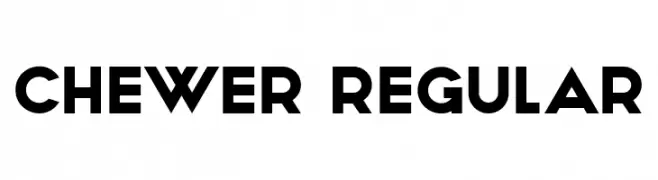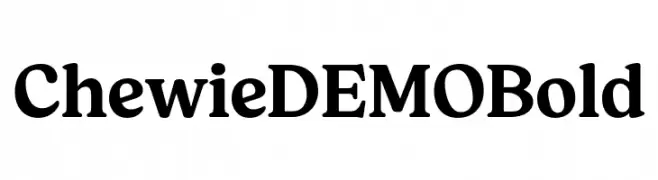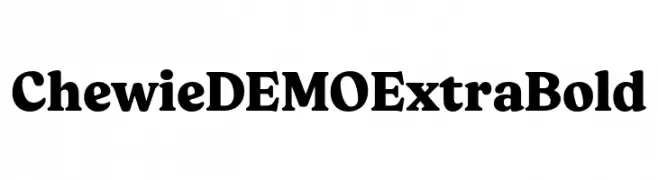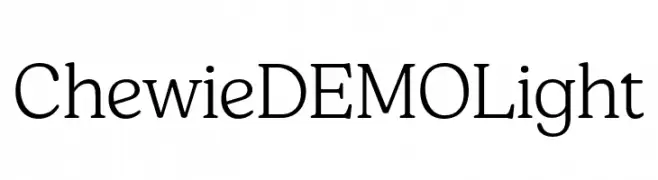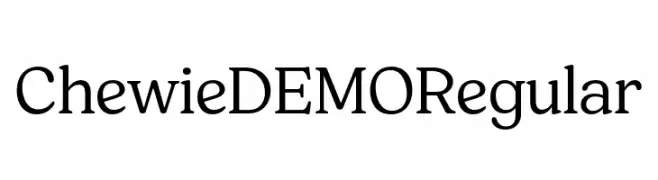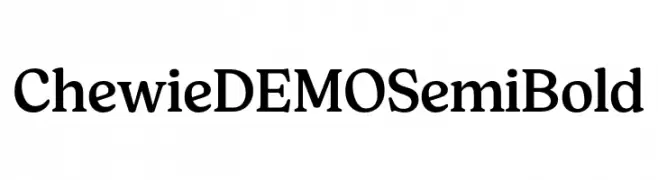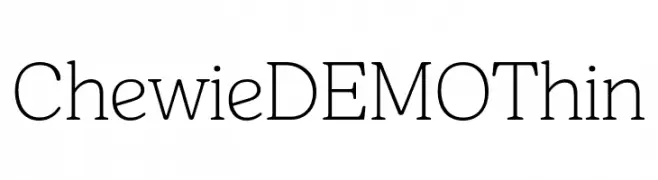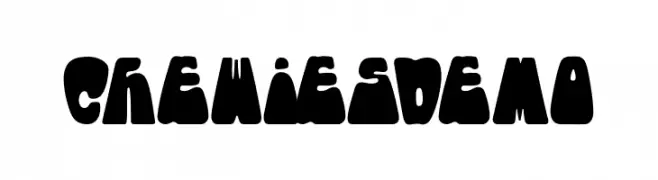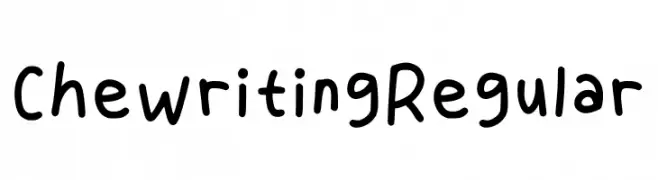
A bold, geometric sans-serif font with strong, angular lines and a modern aesthetic.
A bold serif typeface with a classic and authoritative style.
A bold, serif typeface with strong strokes and commanding presence.
A clean and elegant serif font with thin, graceful strokes.
A modern serif font with elegant and refined letterforms.
A classic serif font with modern elegance and medium contrast.
A classic serif font with semi-bold weight and moderate contrast, ideal for elegant and readable text.
A thin, modern font with elegant strokes and excellent readability.
A bold, playful font with thick, rounded shapes and a whimsical style.
A playful, casual handwritten font with rounded, consistent strokes.